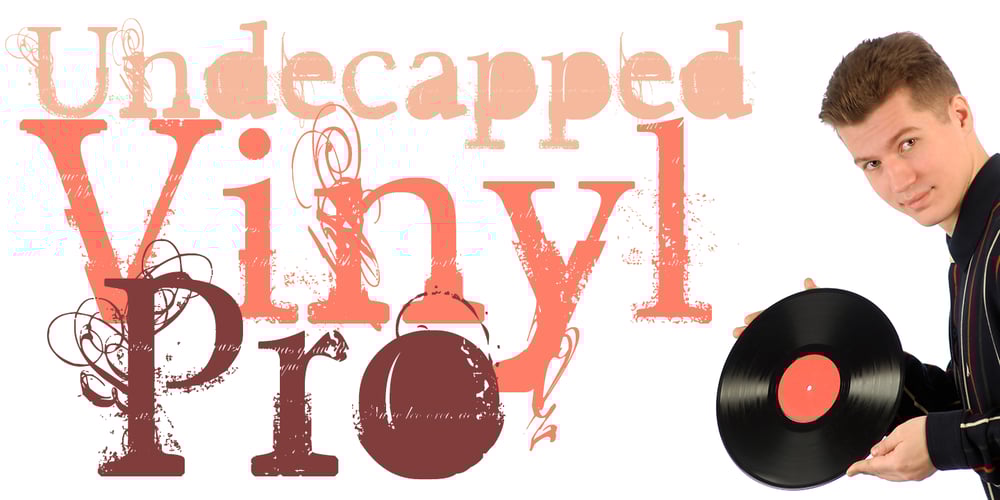
Undecapped Vinyl Pro Font Family was designed by Roger S. Nelsson, Guillaume Séguin and published by CheapProFonts. Undecapped Vinyl Pro contains 1 styles and family package options. Time to grunge it up again with another detailed masterpiece from Guillaume Séguin. Character set has been greatly expanded, ready for some rough and tough designs in many languages. Rock on! ALL fonts from CheapProFonts have very extensive language support: They contain some unusual diacritic letters (some of which are contained in the Latin Extended-B Unicode block) supporting: Cornish, Filipino (Tagalog), Guarani, Luxembourgian, Malagasy, Romanian, Ulithian and Welsh. They also contain all glyphs in the Latin Extended-A Unicode block (which among others cover the Central European and Baltic areas) supporting: Afrikaans, Belarusian (Lacinka), Bosnian, Catalan, Chichewa, Croatian, Czech, Dutch, Esperanto, Greenlandic, Hungarian, Kashubian, Kurdish (Kurmanji), Latvian, Lithuanian, Maltese, Maori, Polish, Saami (Inari), Saami (North), Serbian (latin), Slovak(ian), Slovene, Sorbian (Lower), Sorbian (Upper), Turkish and Turkmen. And they of course contain all the usual “western” glyphs supporting: Albanian, Basque, Breton, Chamorro, Danish, Estonian, Faroese, Finnish, French, Frisian, Galican, German, Icelandic, Indonesian, Irish (Gaelic), Italian, Northern Sotho, Norwegian, Occitan, Portuguese, Rhaeto-Romance, Sami (Lule), Sami (South), Scots (Gaelic), Spanish, Swedish, Tswana, Walloon and Yapese.